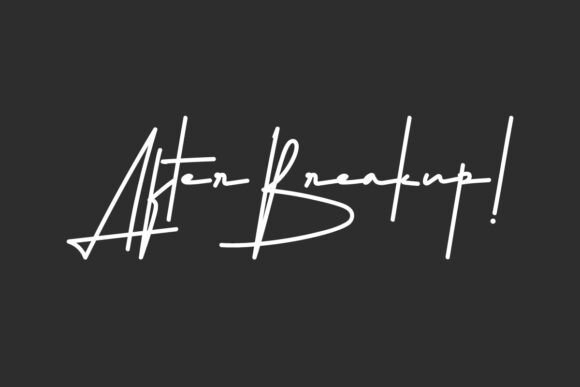
The Breakup Blues: Finding Solace in the After Breakup Font
I’ll never forget the design project that had me on the verge of a creative meltdown. I was working on a romantic getaway brochure for a luxury resort, and my client was adamant that I find the perfect font to convey elegance and whimsy. As I scrolled through font after font, I felt like I was drowning in a sea of sameness. That’s when I stumbled upon the After Breakup font, and my design woes began to fade away ✨.
A First Impression: What I Love About After Breakup
The After Breakup font is a casual, tall, and elegant signature pen writing font that exudes a sense of effortless sophistication. Here are a few things that immediately won me over:
- ✅ Thin lines that dance across the page with a sense of spontaneity
- ✨ A spontaneous assertiveness that adds a touch of personality to any design
- 💫 A versatile aesthetic that lends itself to a wide range of industries, from advertisement and beauty products to fashion and homeware
The Not-So-Perfect Font: A Few Quirks to Consider
While the After Breakup font has stolen my heart, it’s not without its limitations. Here are a few things to keep in mind:
- ⚠️ Some users have reported issues with kerning, particularly at smaller font sizes. Be sure to adjust accordingly to ensure optimal readability.
- 🤔 The font’s elegance can sometimes make it difficult to read at very small sizes. Use it judiciously, and don’t be afraid to experiment with different sizes and styles.
Exploring Alternatives: 4 Fonts Similar to After Breakup
While the After Breakup font is undoubtedly charming, it’s always a good idea to have a few alternatives up your sleeve. Here are four fonts with similar personalities and use cases:
- Pacifico: A beautiful, elegant script font with a relaxed, beachy vibe. Use it for designs that require a laid-back, effortless feel.
- Great Vibes: A stylish, handwritten font with a fun and adventurous personality. Ideal for designs that need a playful, energetic boost.
- Lobster: A sophisticated, luxurious script font perfect for high-end designs, such as luxury brands or upscale events.
- Carolyna Pro: A elegant, refined script font with a classic, sophisticated feel. Suitable for designs that require a touch of traditional elegance.
The Story Behind After Breakup: A Designer’s Inspiration
According to the font’s creator, the After Breakup font was inspired by the raw emotion and vulnerability that follows a breakup. The designer sought to capture the essence of a handwritten journal entry – imperfect, yet intimate – and translate it into a digital font. The result is a font that’s both beautiful and relatable, with a unique personality that shines through in every letter.
| Does the After Breakup font support OpenType features? | Yes, the After Breakup font supports OpenType features, including ligatures and stylistic alternates. This allows for greater flexibility and creativity when working with the font. |